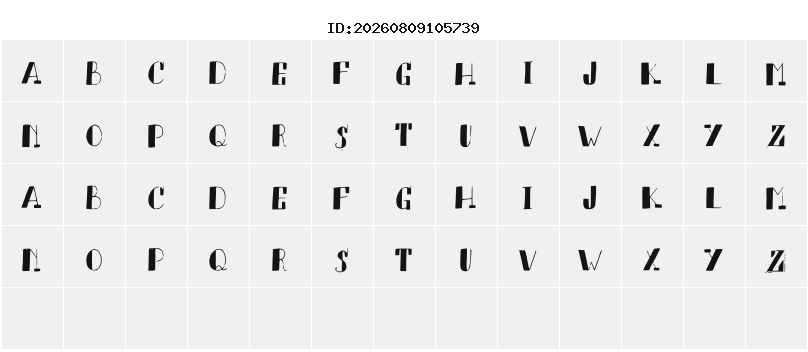
Penn Avenue Preview
• Font Name: Penn Avenue
• Full Font Name: PennAvenue-Regular
• PostScript Name: PennAvenue-Regular
About Penn Avenue.otf
Penn Avenue.otf is a modern, elegant sans-serif font designed for ultimate readability and visual harmony. Perfect for branding, headlines, web design, and print materials.